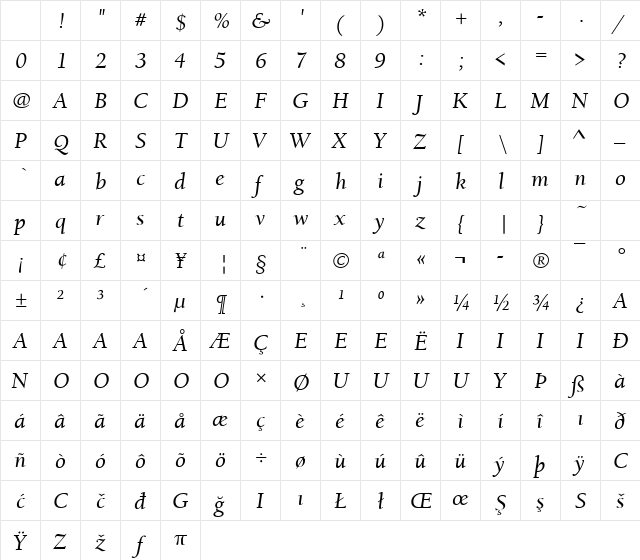
Complete Berkeley Old Style ITC T Medium Italic glyph index. Displaying only characters natively supported by Berkeley Old Style ITC T Medium Italic font.
Berkeley Old Style ITC T is a composed and adaptable typeface that performs quietly and consistently across a wide range of design contexts. The slanted form adds forward momentum and visual energy.